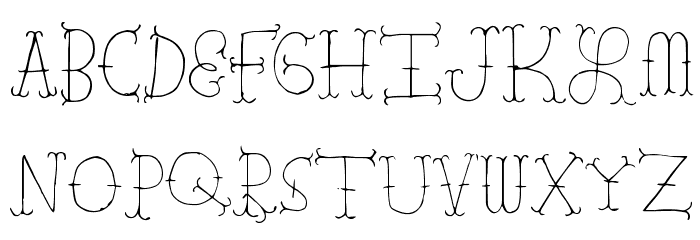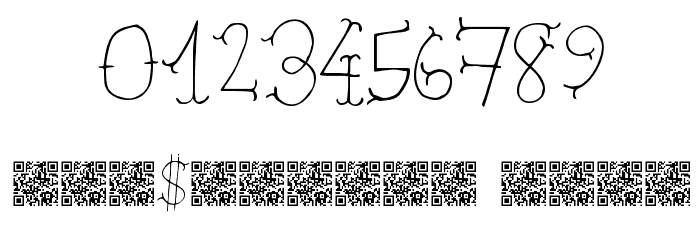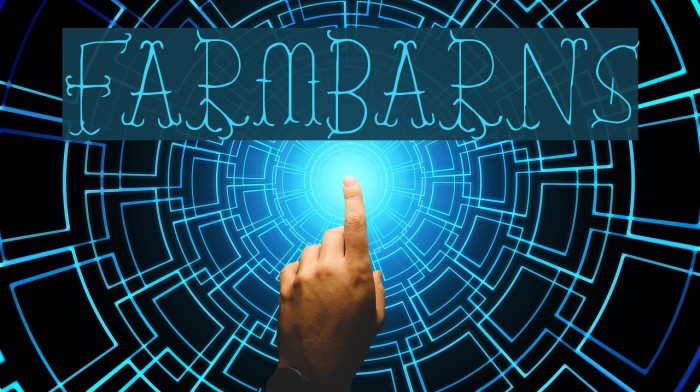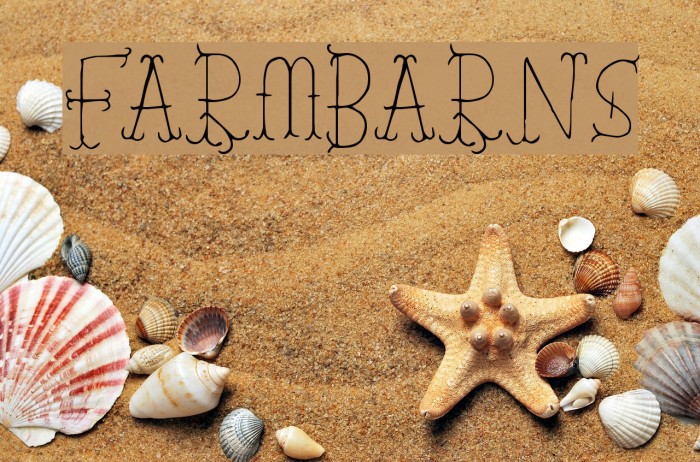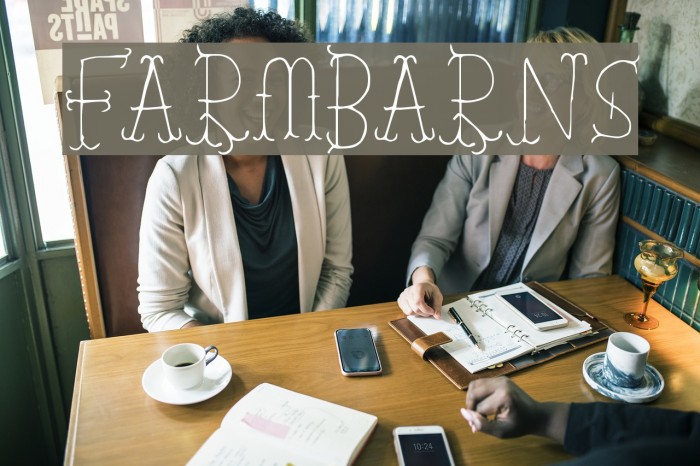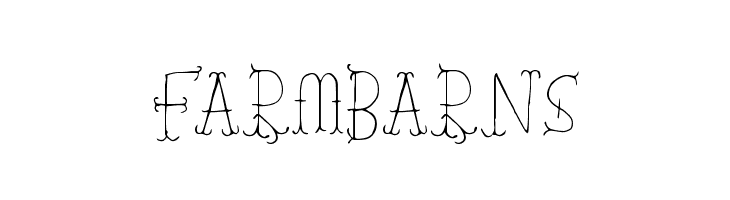
FarmBarns Font
This font features a unique and decorative style with intricate, curling serifs that give it a whimsical and artistic appearance. The characters are thin and elongated, with delicate curves and loops that add a sense of elegance and playfulness. The uppercase and lowercase letters maintain a consistent design, while the numbers and special characters follow the same ornate pattern. This font's distinctiveness makes it stand out, offering a creative flair that is both eye-catching and memorable.
A whimsical and decorative font with intricate, curling serifs and elegant curves.
- Proposed Projects: Ideal for creative projects such as invitations, greeting cards, posters, and branding that require a touch of elegance and uniqueness.
- Weight: Light
- Use Case: Logos, Headlines, Invitations